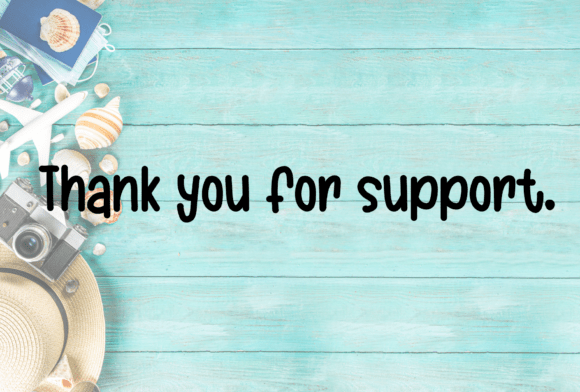
Introduction to Morning Work Font
Do you remember the feeling of excitement you get when you start a new creative project? The blank canvas, the endless possibilities, and the thrill of bringing your ideas to life? For educators and designers, creating engaging classroom materials can be just as thrilling. That’s why we’re excited to introduce the Morning Work Font, a charming and friendly handwritten font designed specifically for you.
This high-quality design resource is perfect for anyone looking to add a touch of personality to their educational materials. With its clean and easy-to-read letterforms, the Morning Work Font is ideal for creating daily morning task slides, student name tags, or cute bulletin board displays. And the best part? It’s available for free download, making it an excellent addition to any creative project.
Whether you’re a seasoned educator or a crafty designer, the Morning Work Font is a valuable resource that will help you stand out from the crowd. Its transparent background makes it easy to use in digital designs, and its versatility makes it perfect for a wide range of creative projects, from teacher planners to social media graphics.
Key Features of Morning Work Font
- High-quality design resource with a unique, modern aesthetic, perfect for creative projects
- Designed with a clean, minimalist style, making it an excellent choice for branding, logos, and marketing materials
Honest Review: Morning Work Font
I recently had the chance to work with Morning Work Font, a free download that I’ve been curious about for some time. As a designer, I always appreciate high-quality design resources that can elevate my creative projects.
So, what works well with Morning Work Font? ✨ Firstly, the font is incredibly versatile, suitable for a wide range of design applications, from logos to digital displays. Its clean, modern design makes it perfect for creating visually appealing graphics. The font also comes with a transparent background, which is a big plus for designers who need flexibility in their designs.
Another advantage of Morning Work Font is its free download. This makes it an excellent choice for designers who are on a budget or just starting out. I also appreciate the font’s consistency, which makes it easy to use across different design projects.
That being said, there are a few limitations to Morning Work Font. ⚠️ One thing that I found was that the font doesn’t have a huge range of weights and styles, which may be a drawback for some designers. Additionally, the font may not be suitable for all types of designs, particularly those that require a lot of customizability.
Overall, I’m impressed with Morning Work Font. It’s a solid choice for designers who need a high-quality, versatile font for their creative projects. While it may not be perfect, I appreciate its free download and transparent background, which make it an excellent value for the price.
- High-quality design suitable for logos, digital displays, and more
- Transparent background provides flexibility in design applications
- Consistent design makes it easy to use across different projects
- Limited range of weights and styles may be a drawback for some designers
Tips for Getting the Most Out of Morning Work Font
Experiment with different font sizes and styles to find the perfect fit for your project. Use Morning Work Font in conjunction with other design elements, such as images and graphics, to create a visually appealing design.
Morning Work Font is ideal for a variety of creative projects, including social media posts, flyers, presentations, and documents. Its high-quality design and transparent background make it a great choice for any project that requires a professional look.
Q: What makes the Morning Work Font a high-quality design resource?
The Morning Work Font is designed with a transparent background, allowing for easy customization and integration with various design elements. Its high-quality design ensures crisp rendering on both digital and print materials, making it an ideal choice for designers working on a wide range of creative projects.